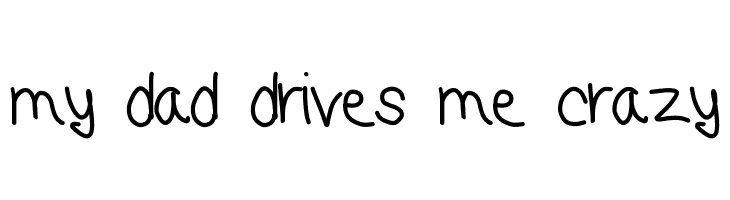
( Fonts by Pizzadude )
A textured, handwritten font with a casual and organic style.
( Fonts by Muskaters )
A bold, flowing script font with elegant curves and dynamic energy.
( Fonts by junkohanhero )
A bold, hand-drawn font with a rough, sketch-like appearance.
( Fonts by junkohanhero )
A bold, hand-drawn font with an expressive and dynamic style.
( Fonts by junkohanhero )
A bold, hand-drawn font with an expressive and artistic style.
( www.junkohanhero.com )
A bold, expressive script font with a hand-drawn, artistic style.
( Fonts by notfon1234 )
A playful, bold handwritten font with a friendly and casual style.
( Fonts by Misti's Fonts )
A playful, handwritten font with smooth, rounded edges and a whimsical style.
( chanceeditions.deviantart.com/ )
A playful, hand-drawn font with a childlike and whimsical style.